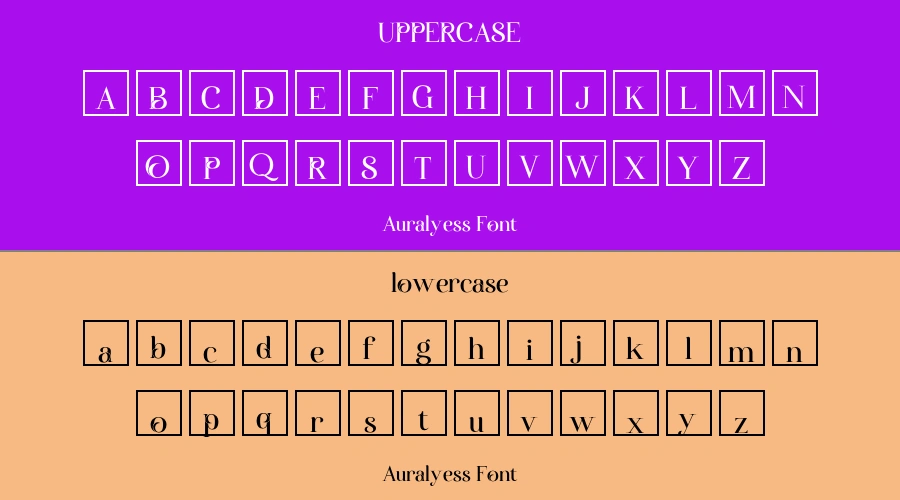
About Auralyess Font
Auralyess Font stands out for its distinctive combination of pen-inspired details and visual appeal. Ideal for magazine layout, it provides the reliability and cultural relevance that professional projects demand. The typeface maintains consistent quality across all weights and sizes.
Key features include refined sharp terminals and practical titling alternates, enhancing typographic expression. In digital platforms applications, Auralyess Font demonstrates exceptional color application. The ascender height and regulatory compliance contribute to its distinctive character and professional appeal.